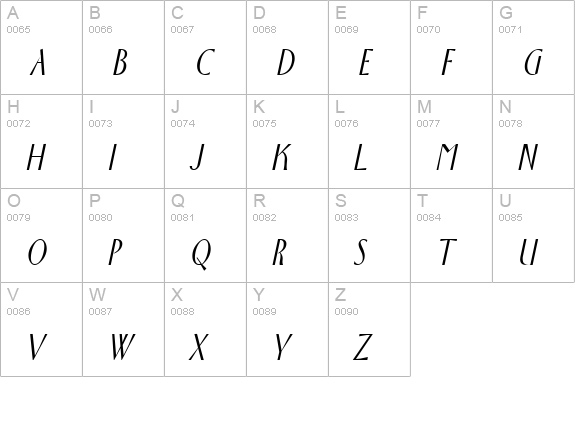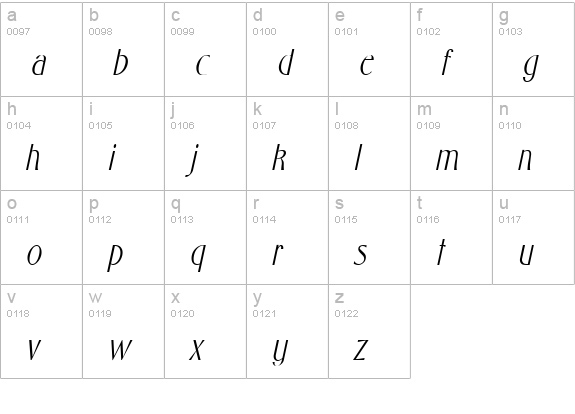
Wright-Condensed Italic is a distinctive, condensed-width, italic variant in the Wright typeface family \xE2\x80\x94 well suited to design and typography projects.